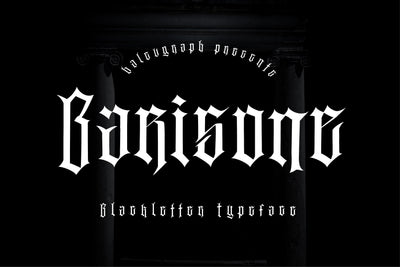
Barisone - Blackletter Typeface
Barisone is a cool, highly detailed and assertive blackletter font. This font is imposing and features uniquely shaped letters, and as a result, it will easily match a wide range of creations that require a distinct touch.